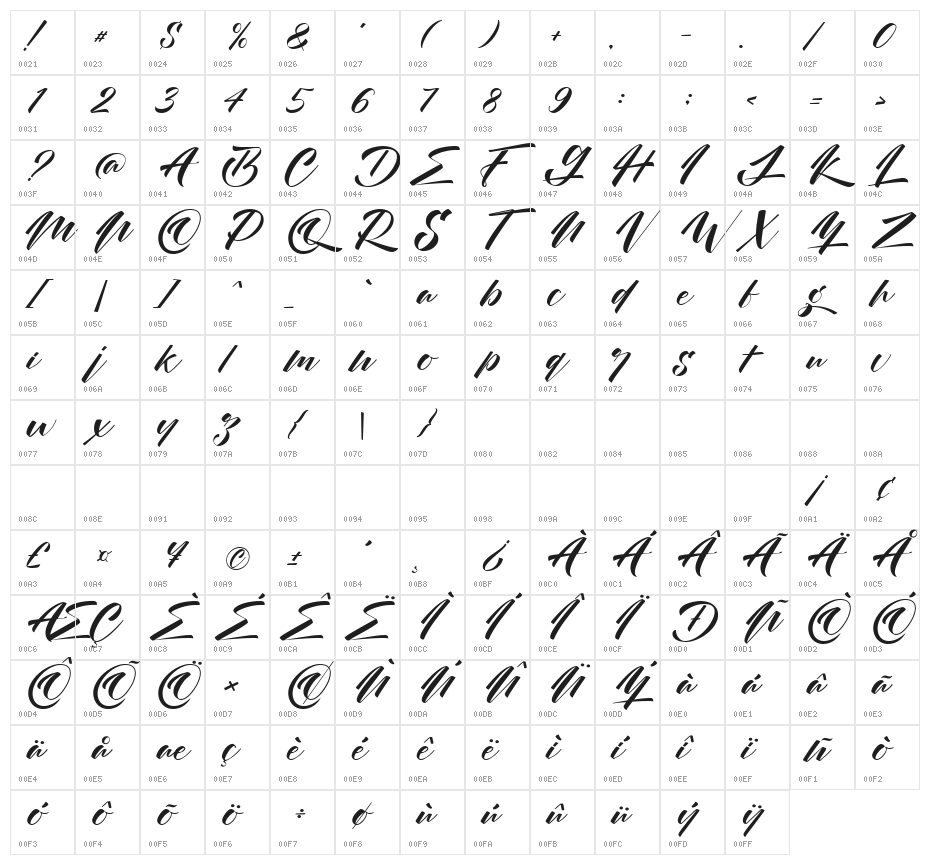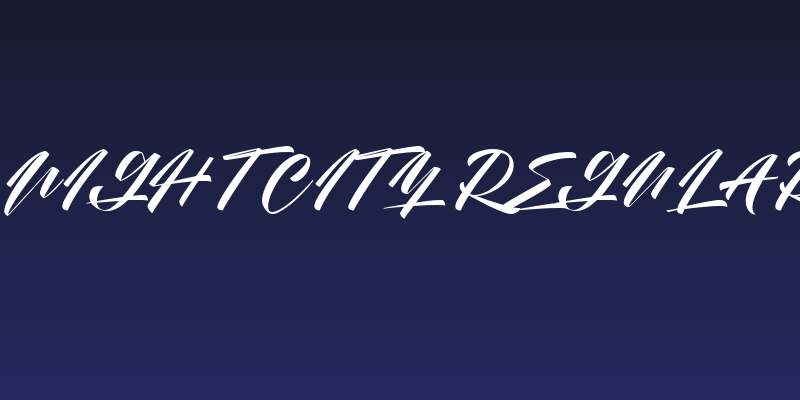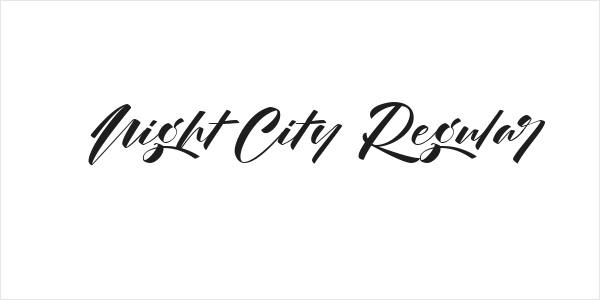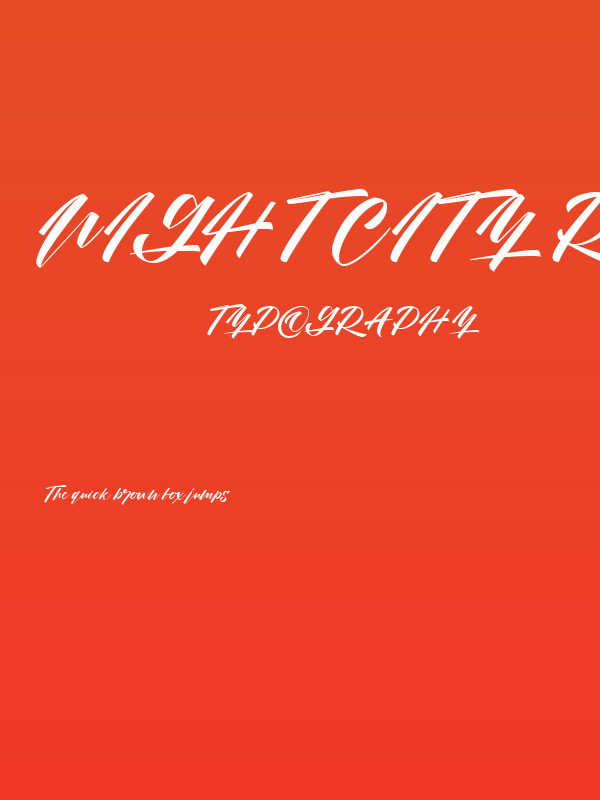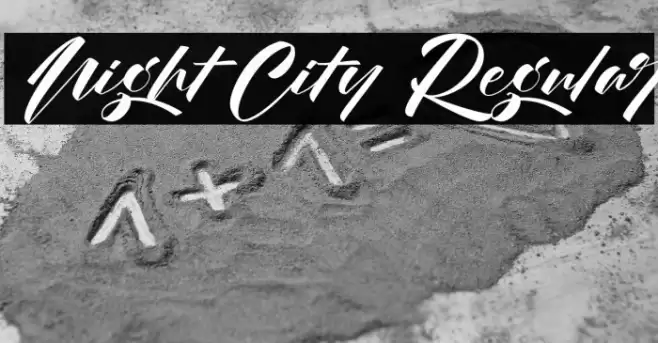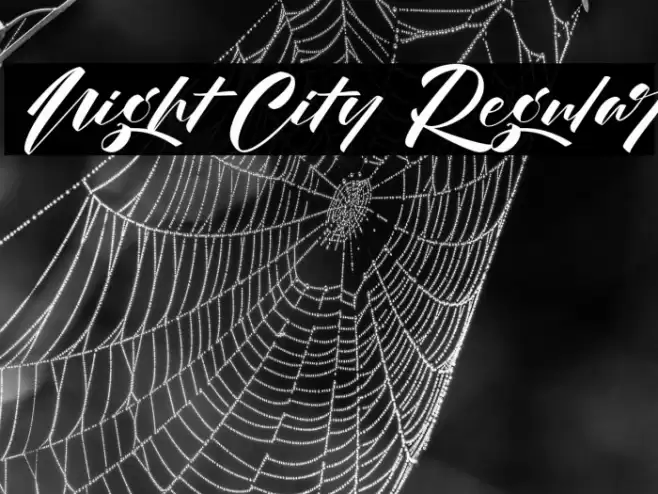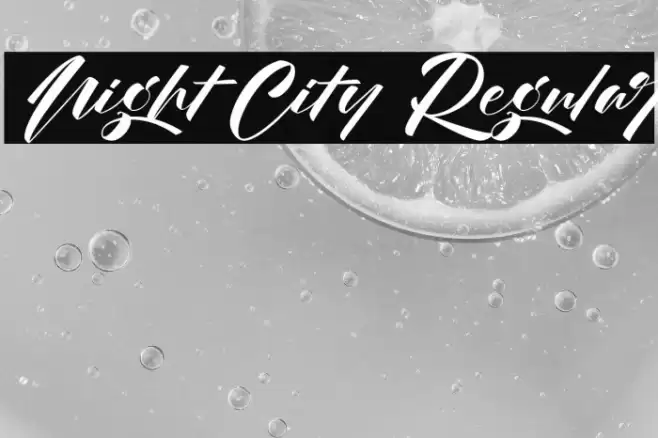
Night City Regular Font
This font exudes a dynamic and energetic style, characterized by its bold, sweeping strokes and fluid, cursive design. The uppercase letters are particularly striking, with a sense of movement and flair that suggests a handwritten quality. The lowercase letters maintain this fluidity, offering a harmonious flow that complements the uppercase. Numbers and special characters are equally expressive, maintaining the font's overall aesthetic. The strokes are thick, providing a strong visual impact, while the slanted orientation adds to the sense of motion and modernity. This font is ideal for projects that require a touch of elegance and boldness, such as branding, posters, and creative headlines.
| Proposed Projects | Ideal for branding, posters, creative headlines, and any project needing a bold, elegant touch. |